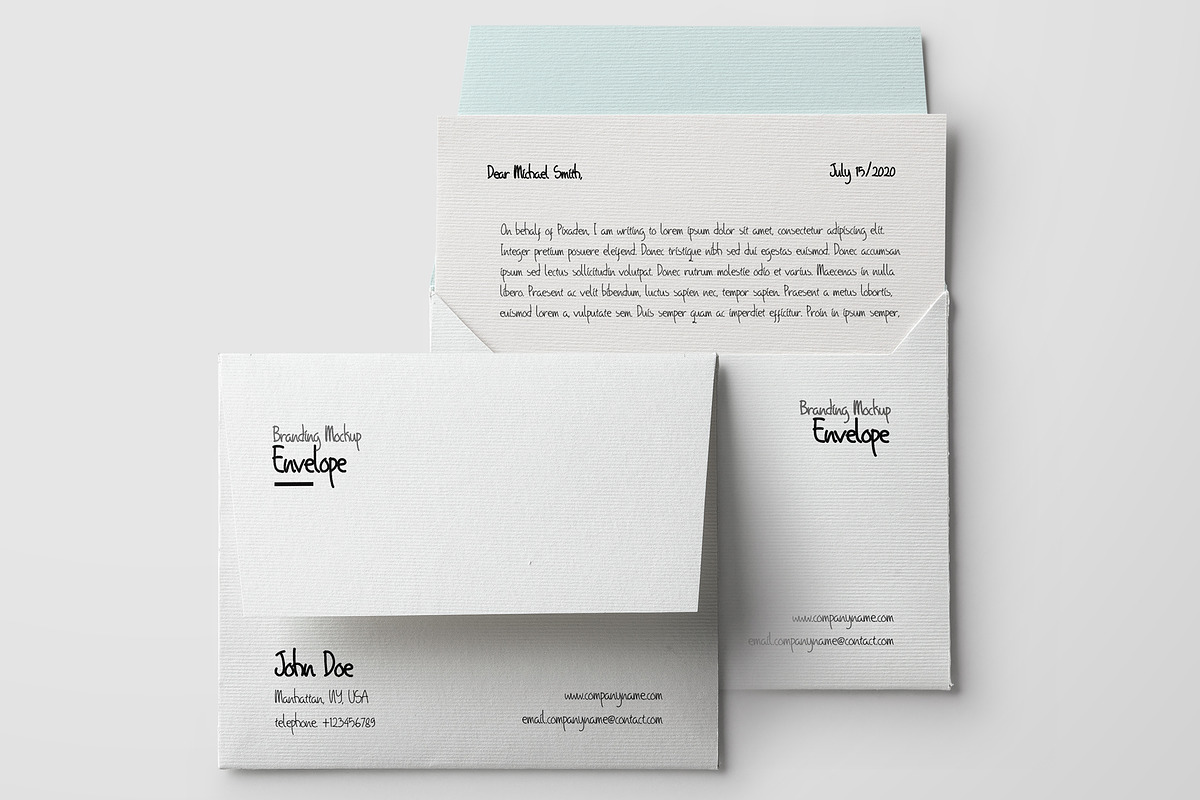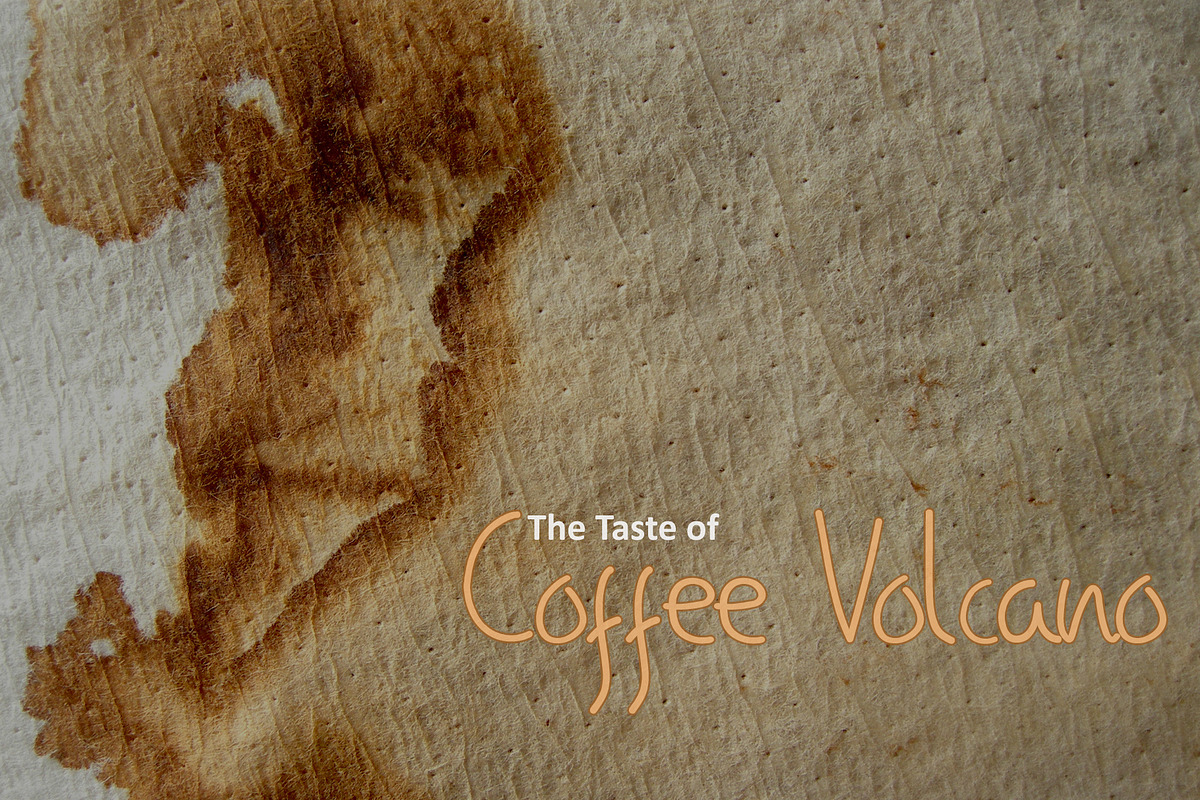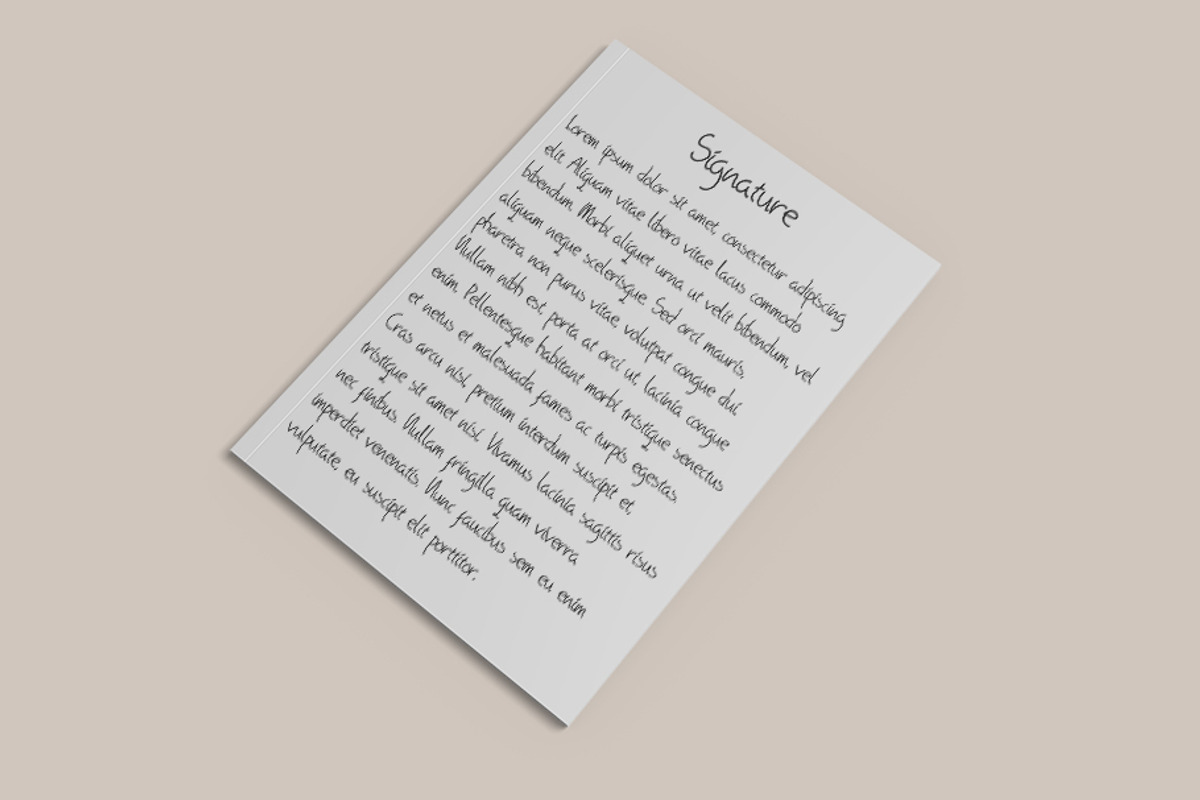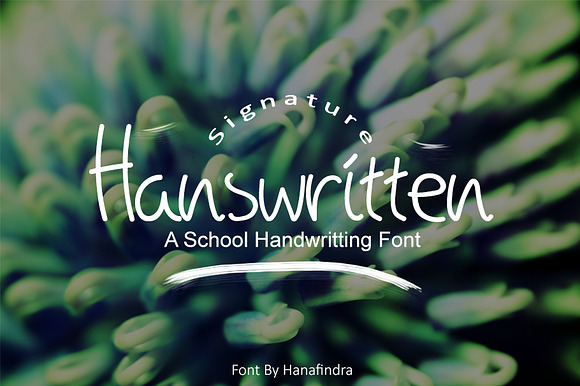
Signature Hanswritten School Font
Proudly introducing the new font : Signature Hanswritten School Font.
This font comes just in 1 style which is Regular. You can see on the previews above and this font will be perfect for many different projects such as typewritter company, branding, invitation, poster, flyer, wedding designs, social media posts, advertisements, product packaging, product designs, label, special events or movie poster title.
Hanswritten also includes full set of uppercase and lowercase letters, multilingual symbols, numerals, punctuation. The font has smooth wet line texture, so would be perfect for all types of printing techniques and you can do embroidery, laser cut, gold foil etc.